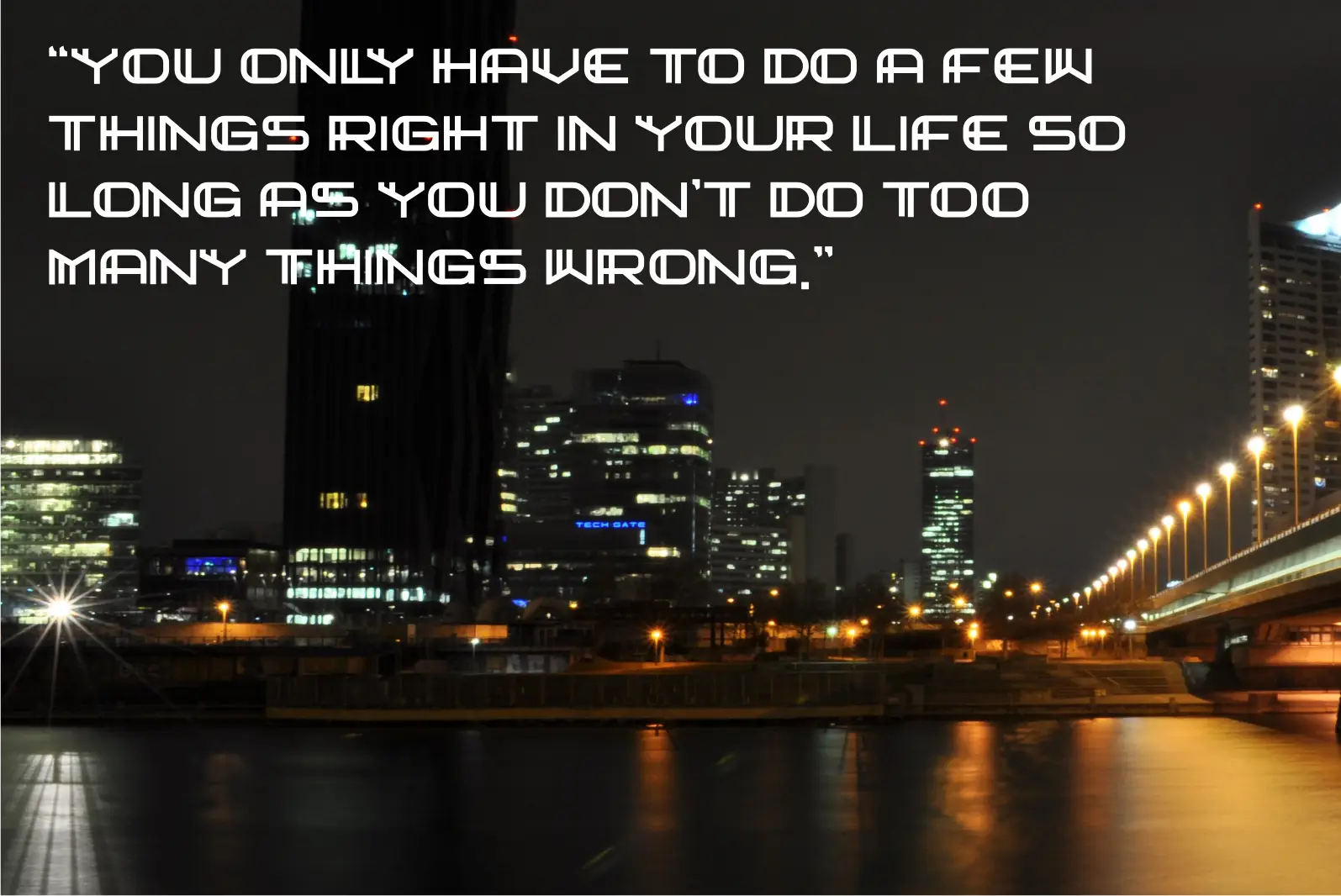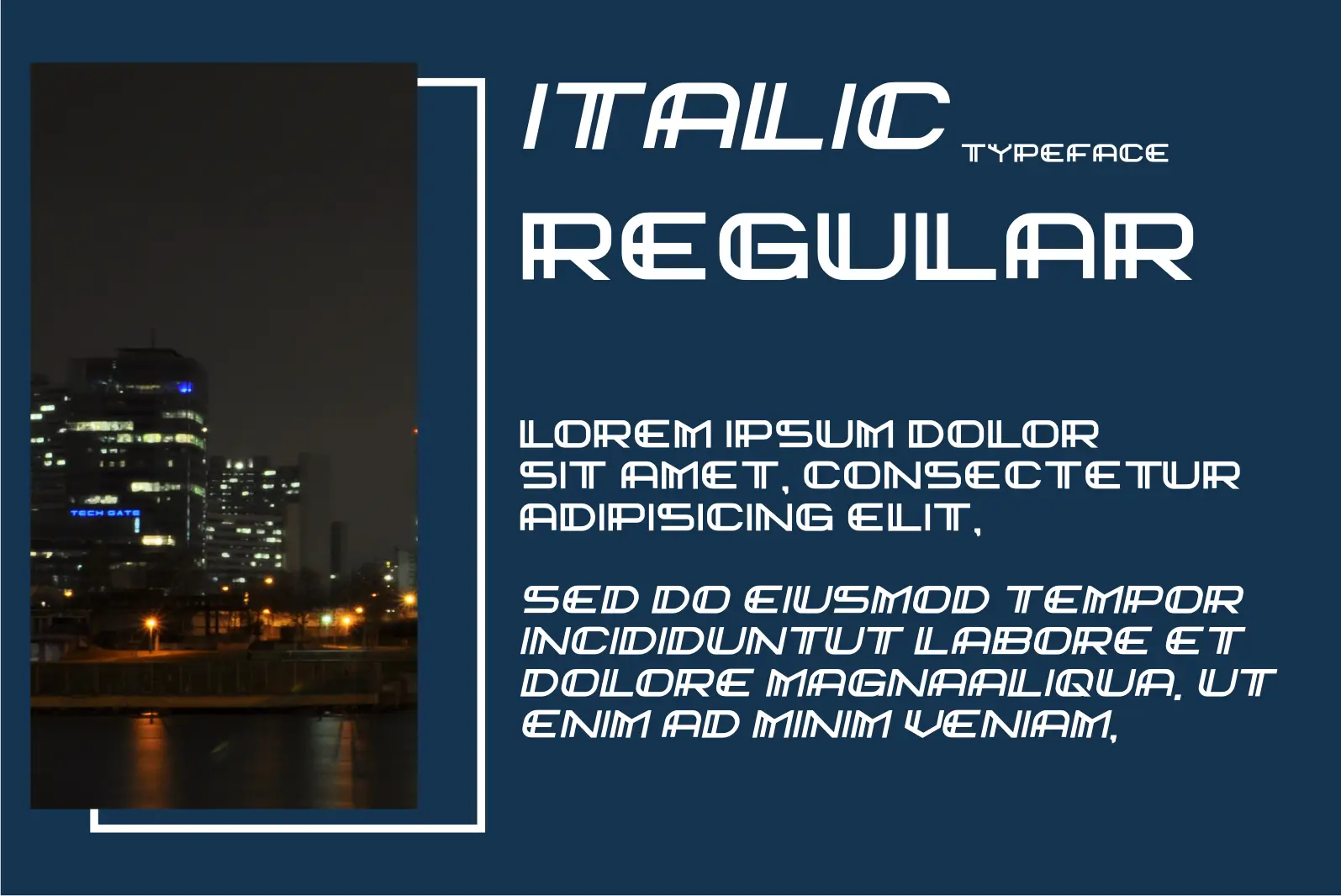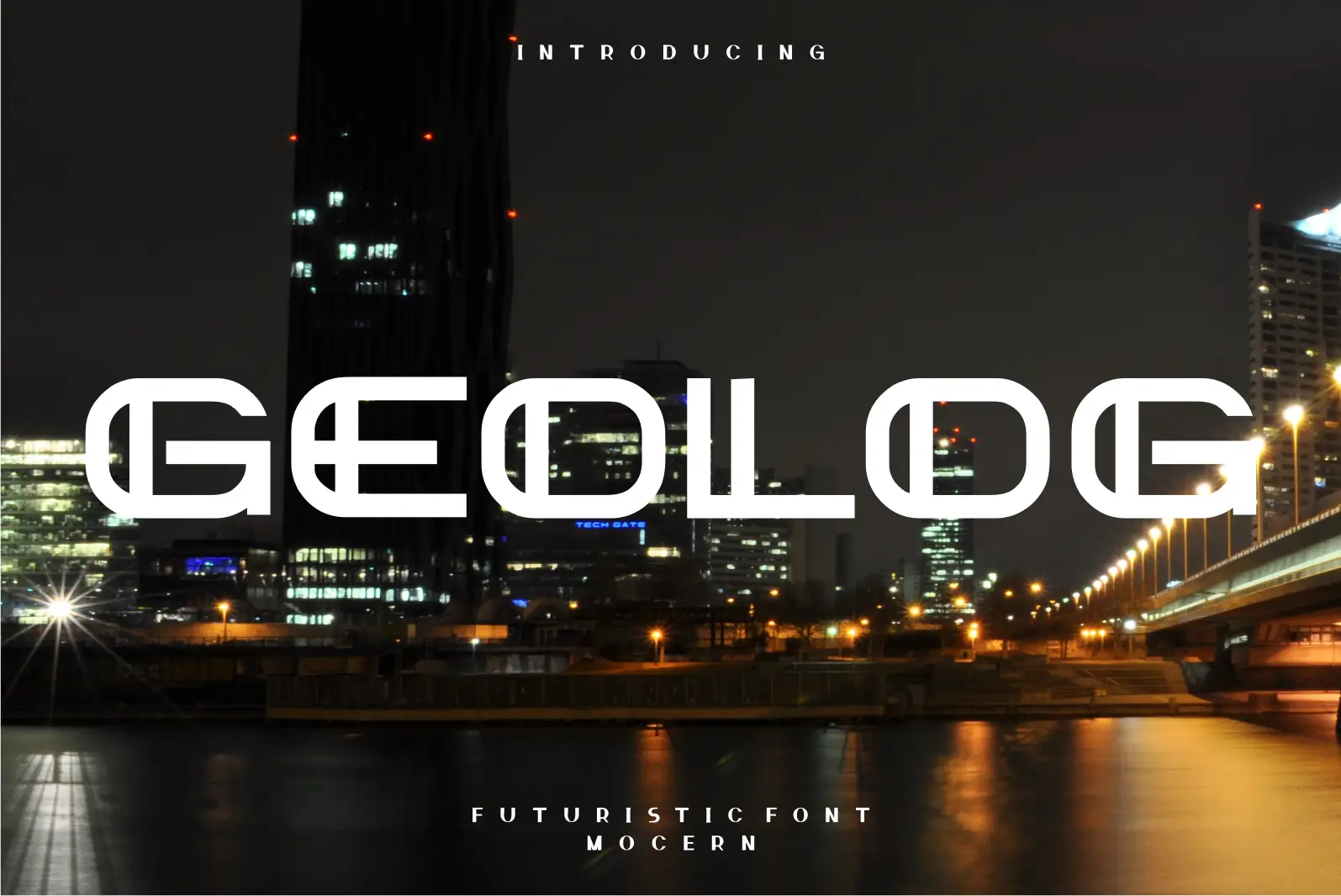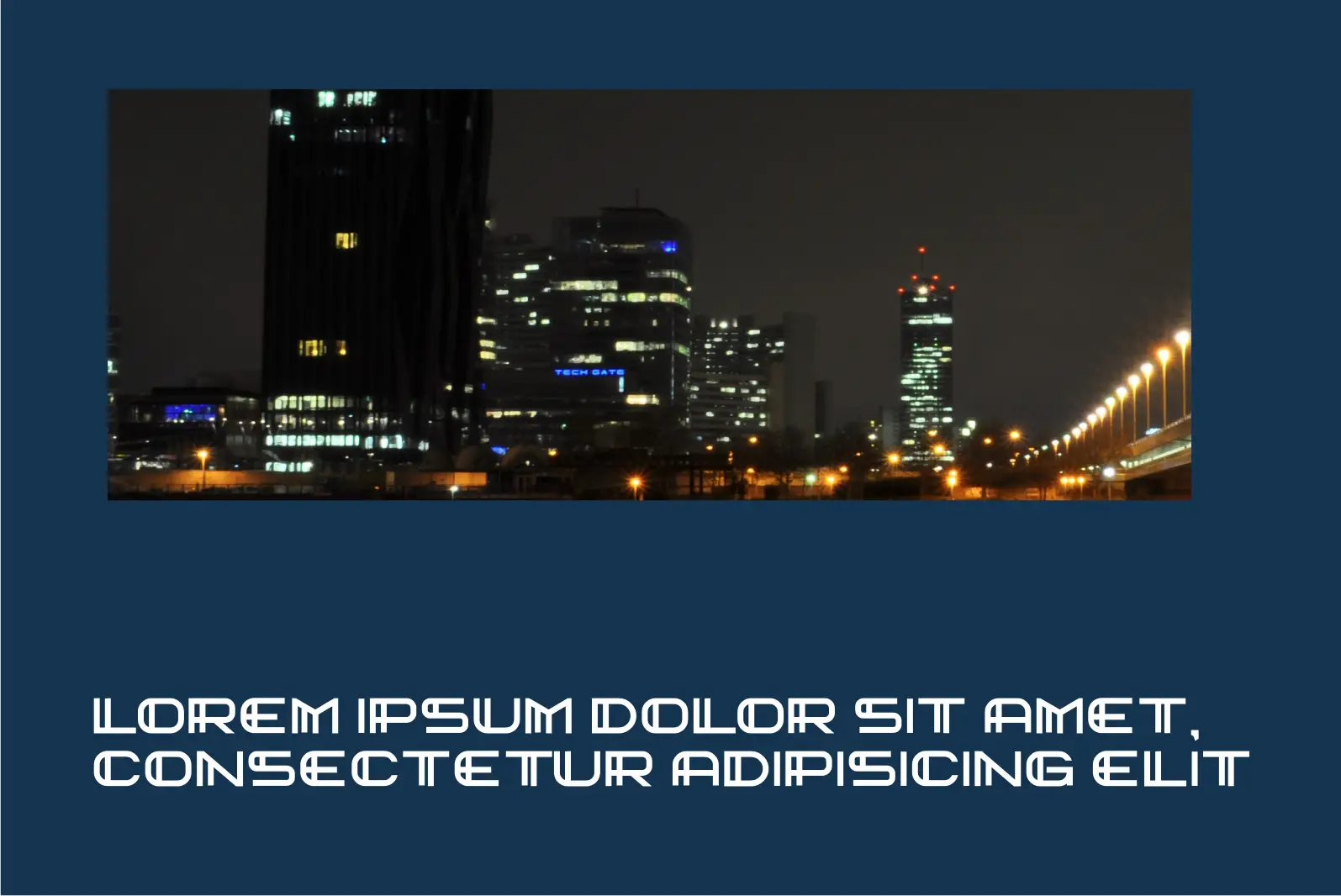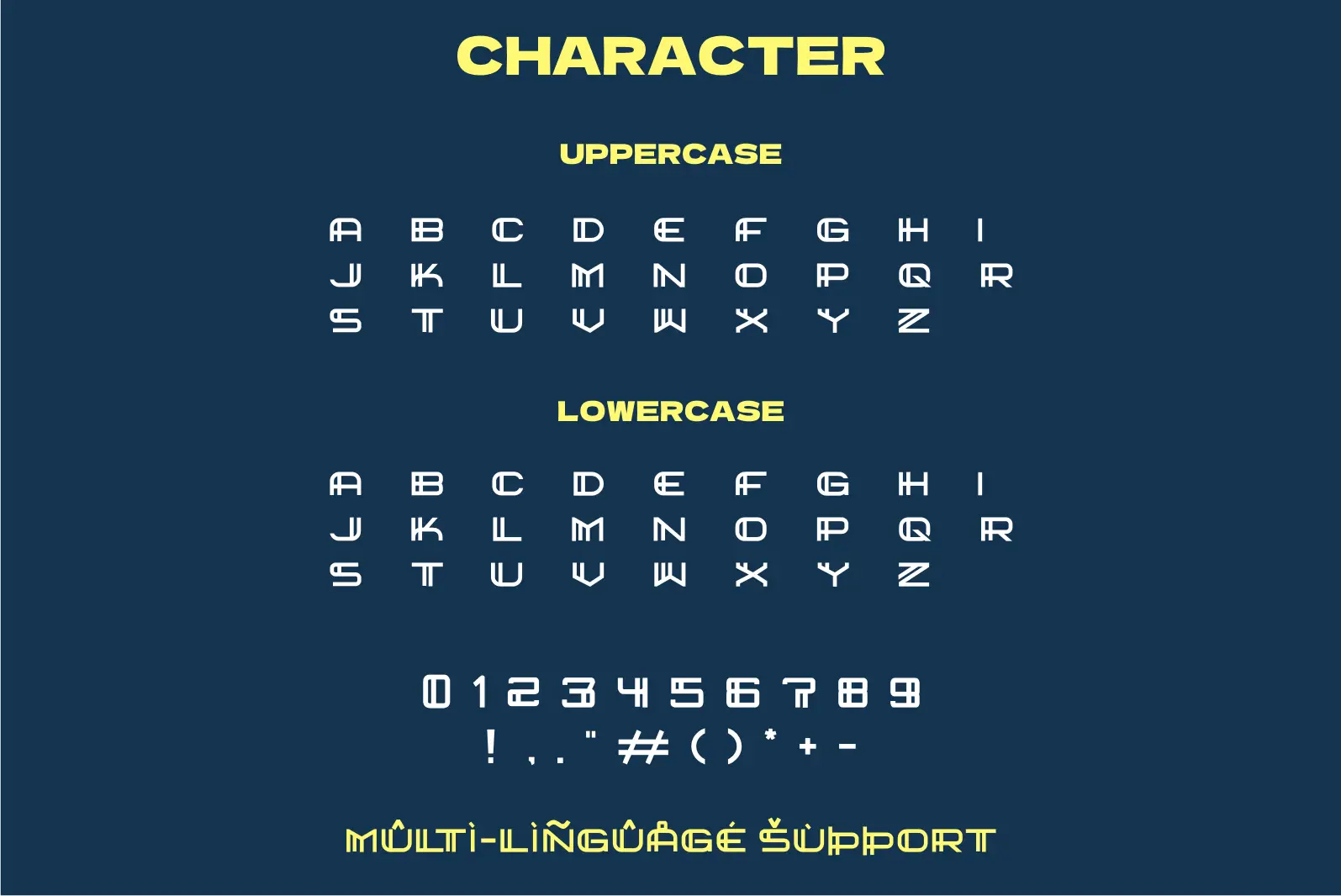
Geolog Display Font
The Geolog Display Font is a striking typeface designed to make a bold statement in various design projects. Its unique character shapes and clean lines make it an excellent choice for branding, logos, and eye-catching headlines.
• Distinctive display style
• Weight: Regular, Bold
• Ideal for branding and logo design
• Perfect for print materials like posters and flyers
• Great for web use, ensuring readability at various sizes